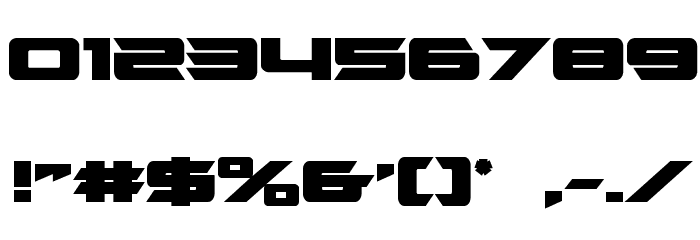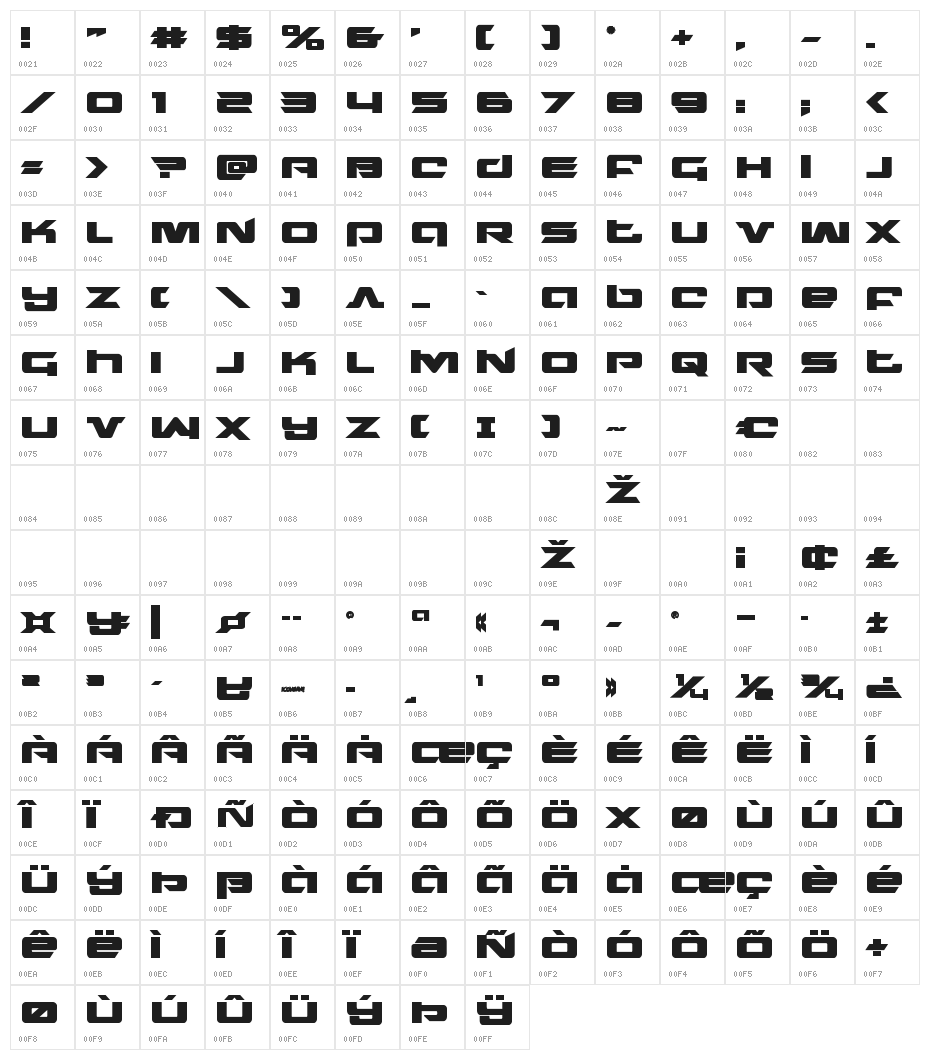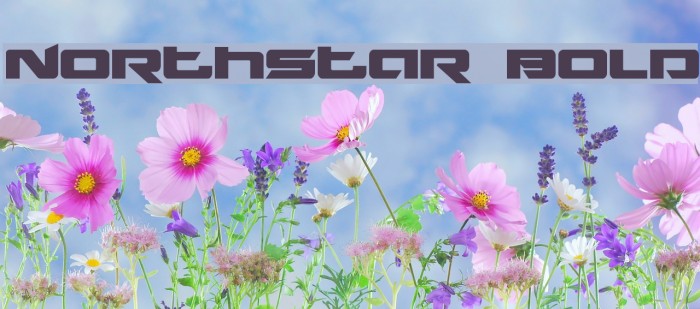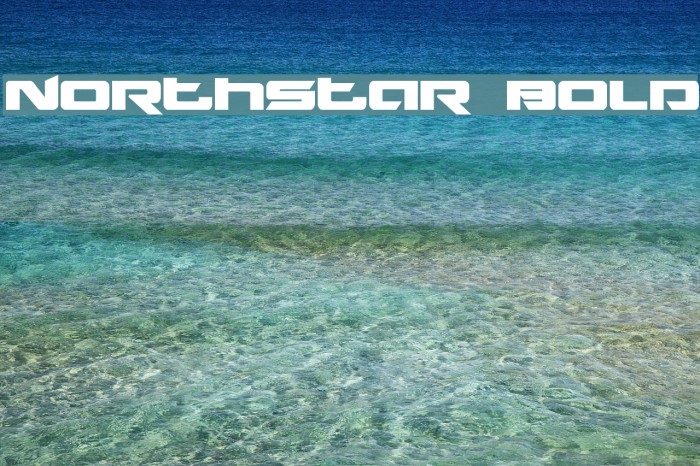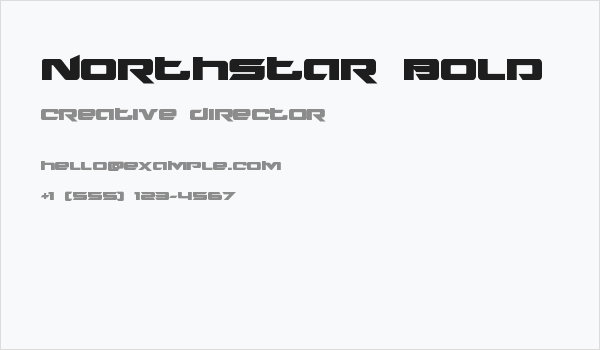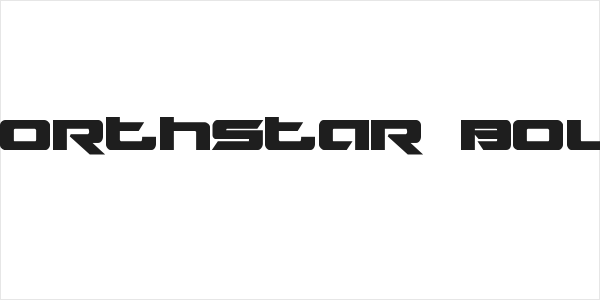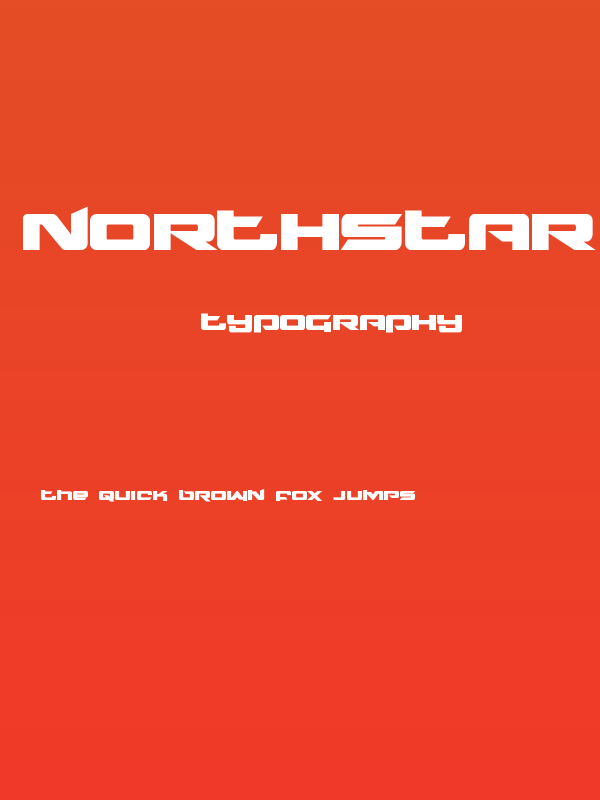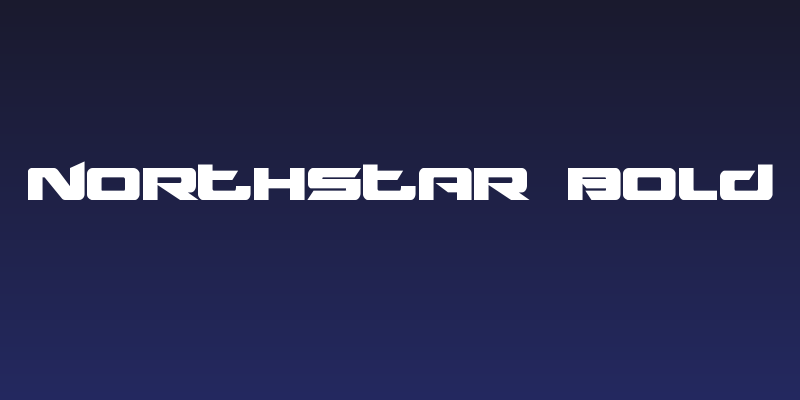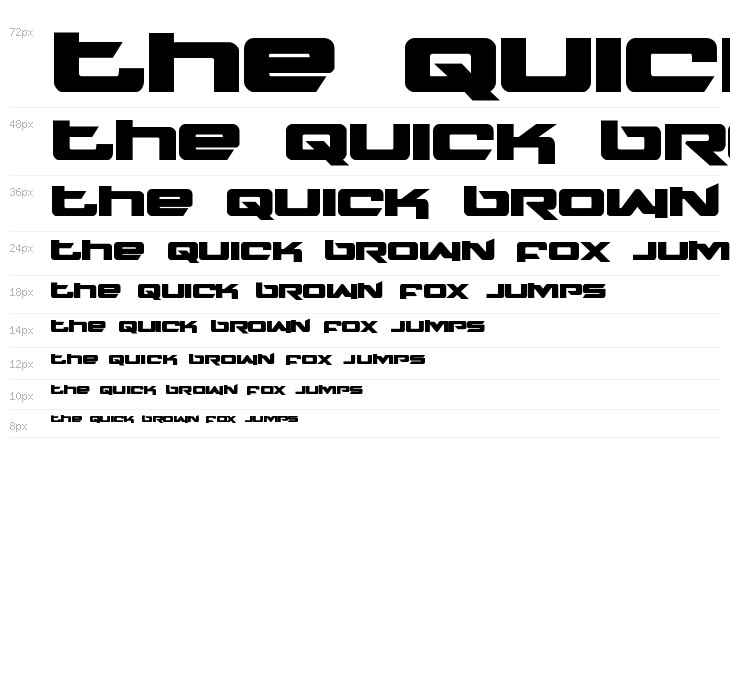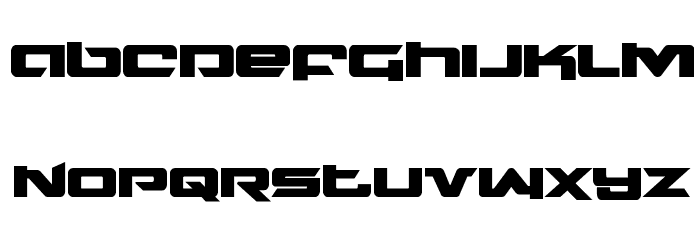
Northstar Bold Font
Northstar Bold Description
This font features a bold, futuristic design with sharp angles and geometric shapes. The characters are wide and have a strong presence, making them ideal for impactful headlines and titles. The uppercase and lowercase letters maintain a consistent style, with a unique, edgy look that sets them apart. The numerals and special characters are equally bold, ensuring uniformity across all text elements. The font's design is reminiscent of sci-fi themes, with a modern twist that makes it suitable for contemporary projects.
| Proposed Projects | Ideal for sci-fi themed designs, video game titles, movie posters, and branding for tech companies. |